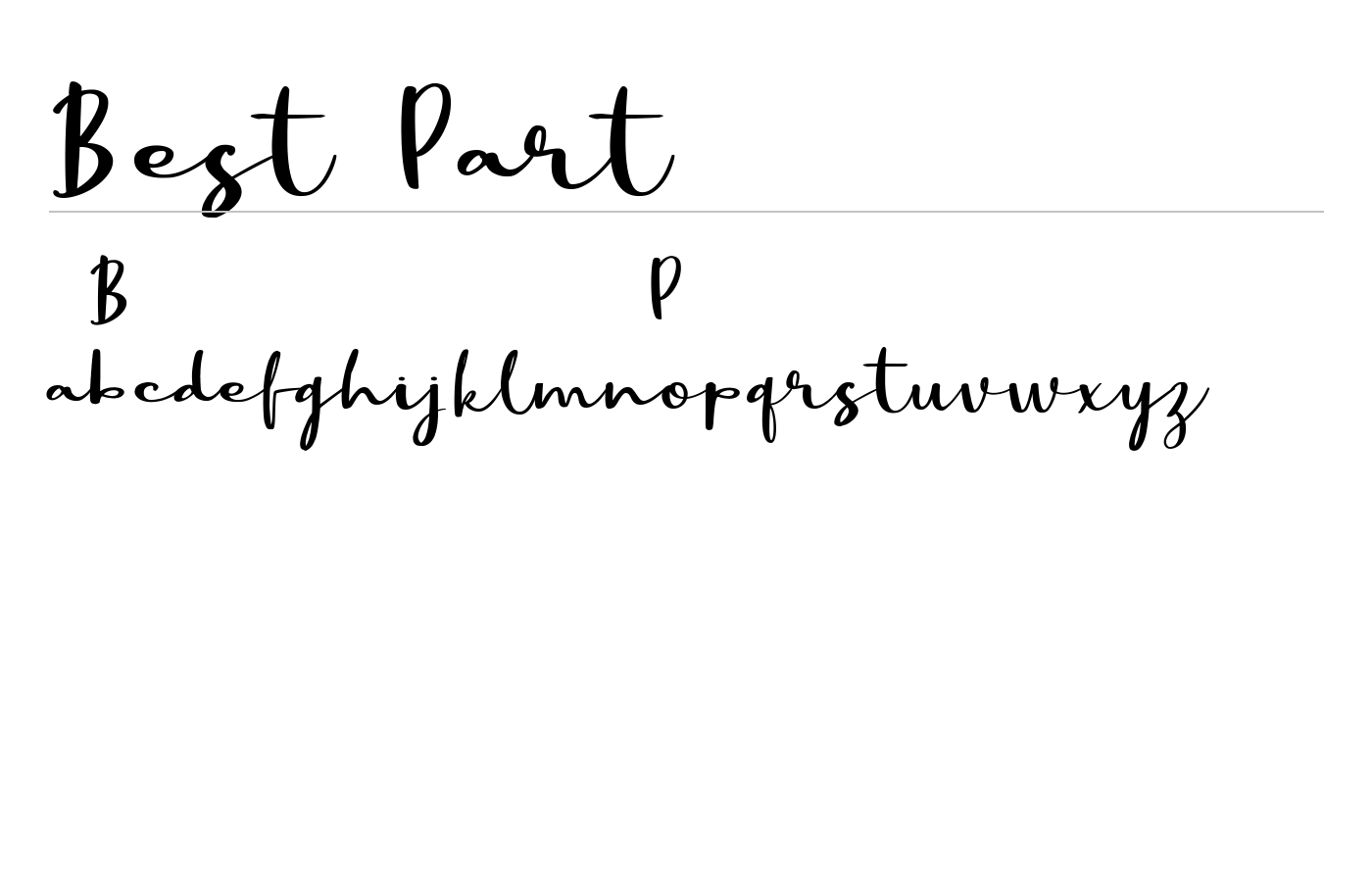
Best Part DEMO is a charming script font with a hand-lettered feel, featuring smooth, rounded strokes and a light to medium weight that gives it an inviting, casual elegance. Its narrow width and connected lowercase letters create a flowing, friendly look perfect for personal branding, invitations, and lifestyle packaging. This font works well in projects seeking a warm, approachable, and stylish vibe that feels both modern and playful.
Best Part DEMO Font
About Best Part DEMO Font
| Font family | Best Part DEMO Font |
| Designer | Ian Irwanwismoyo |